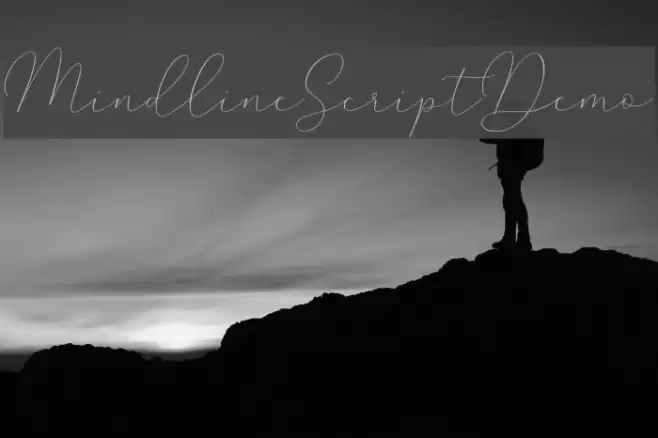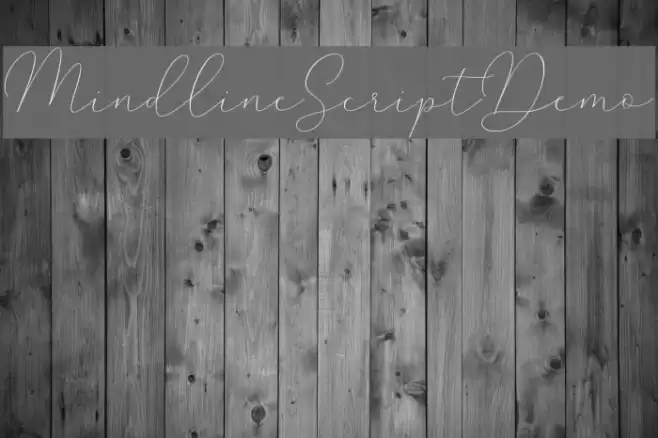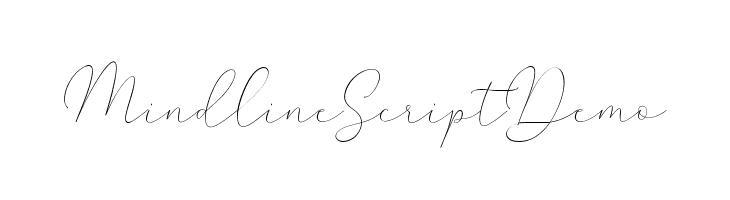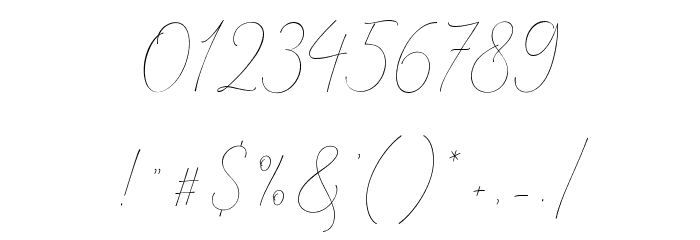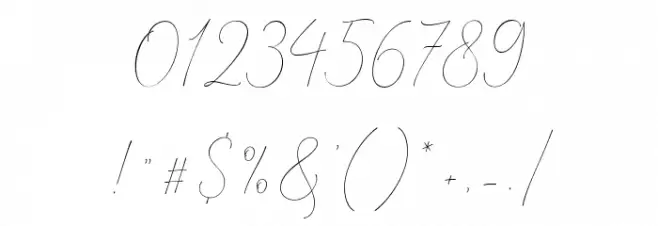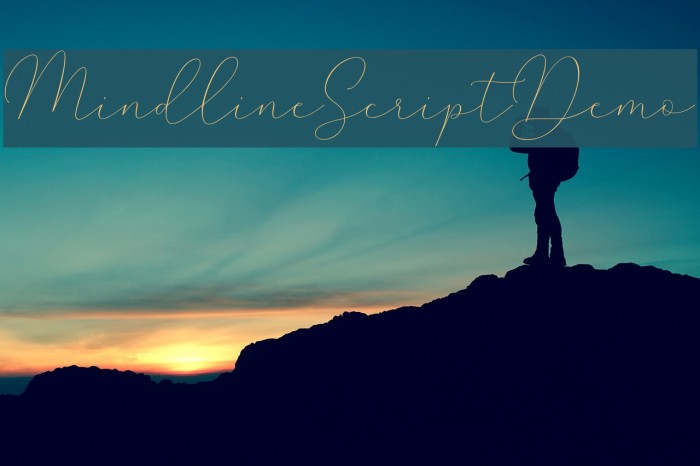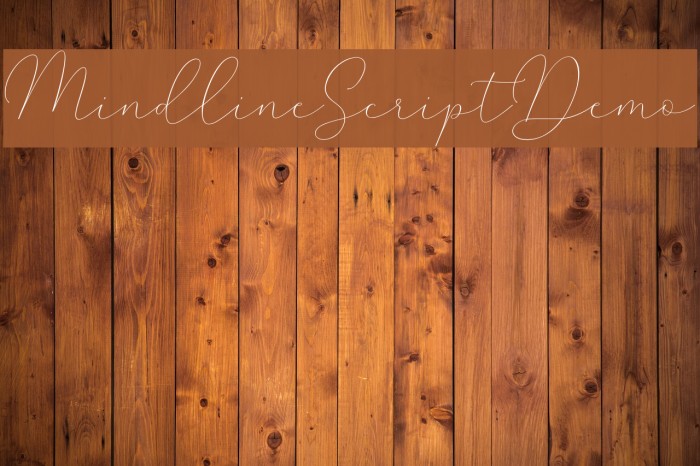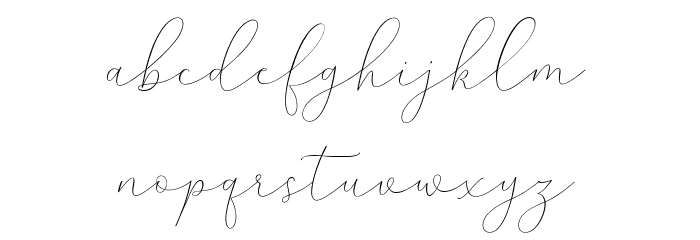
MindlineScriptDemo Font
MindlineScriptDemo Description
This elegant script font features a delicate and flowing design, characterized by its smooth, continuous strokes that mimic the fluidity of handwriting. The uppercase letters are slightly more ornate, with graceful loops and swirls, while the lowercase letters maintain a consistent, cursive style. The numerals and special characters are crafted to complement the overall aesthetic, ensuring a cohesive look. The thin lines and gentle curves give it a sophisticated and airy feel, making it ideal for projects that require a touch of elegance and personalization.
A delicate and flowing script font with elegant, continuous strokes from Uncategorized fonts.
- Proposed Projects: Ideal for wedding invitations, greeting cards, personal branding, and elegant stationery.
- Weight: Light
- Overall Style: Elegant
- Use Case: Logos, Invitations, Personal Branding